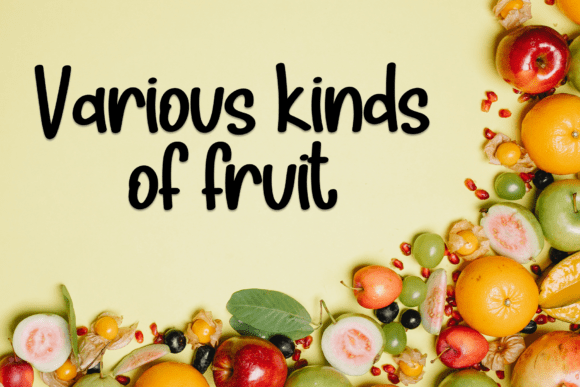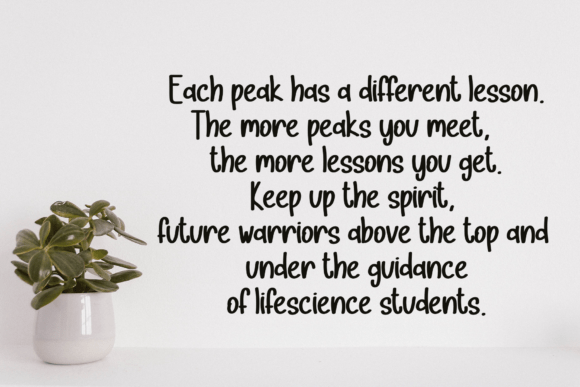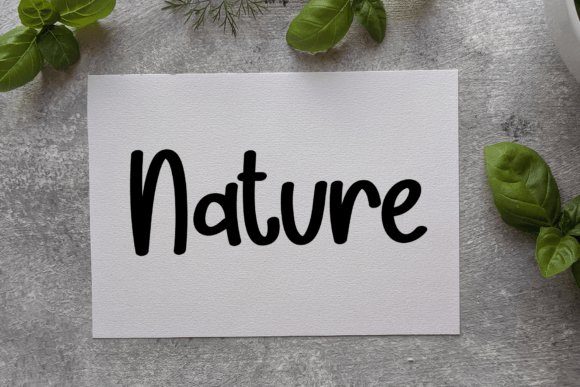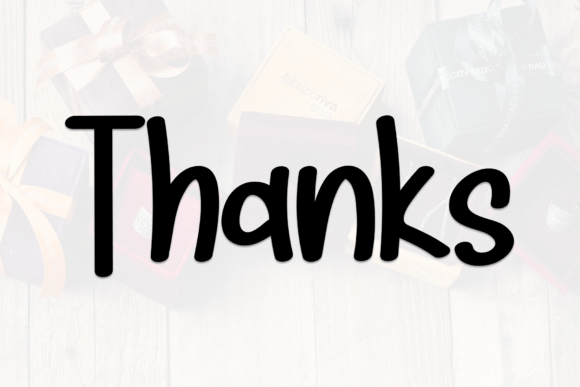
Christmas Anoting Font: A Charming Handwritten Font for Your Holiday Designs
As the holiday season approaches, designers and crafters are on the lookout for the perfect fonts to add a touch of magic to their Christmas designs. If you’re searching for a font that exudes warmth, coziness, and a sense of heartfelt perfection, look no further than Christmas Anoting Font. In this article, we’ll dive into the features and benefits of this charming handwritten font and explore how it can elevate your holiday design projects.
What is Christmas Anoting Font?
Christmas Anoting Font is a beautiful, handwritten font that is filled with a sense of warmth and coziness. Its smooth strokes and organic lines evoke a relaxed atmosphere, making it perfect for a variety of design projects. Whether you’re working on branding, invitations, or social media graphics, this font is sure to add a touch of personality and whimsy to your designs.
Key Features of Christmas Anoting Font
- Handwritten style: Christmas Anoting Font has a charming, handwritten style that adds a personal touch to your designs.
- Smooth strokes: The font features smooth strokes and organic lines that give it a relaxed and natural feel.
- Versatile: Christmas Anoting Font is perfect for a variety of design projects, from branding and invitations to social media graphics and more.
- Easy to read: Despite its handwritten style, Christmas Anoting Font is easy to read and understand, making it perfect for use in body text or headlines.
Benefits of Using Christmas Anoting Font
So why choose Christmas Anoting Font for your holiday design projects? Here are just a few benefits of using this charming font:
- Adds a personal touch: Christmas Anoting Font adds a personal touch to your designs, making them feel more approachable and relatable.
- Evokes a sense of warmth and coziness: The font’s smooth strokes and organic lines evoke a sense of warmth and coziness, perfect for holiday designs.
- Perfect for holiday designs: Christmas Anoting Font is specifically designed with the holiday season in mind, making it perfect for use in Christmas cards, invitations, and more.
Design Ideas Using Christmas Anoting Font
So what can you create with Christmas Anoting Font? Here are a few design ideas to get you started:
- Christmas cards: Use Christmas Anoting Font to create beautiful, personalized Christmas cards for friends and family.
- Invitations: Create festive invitations for holiday parties, events, and gatherings using Christmas Anoting Font.
- Social media graphics: Use Christmas Anoting Font to create eye-catching social media graphics, such as holiday-themed Facebook posts and Instagram stories.
- Branding: Incorporate Christmas Anoting Font into your holiday branding, such as on packaging, labels, or website headers.
Tips for Using Christmas Anoting Font
Here are a few tips for getting the most out of Christmas Anoting Font:
- Use it sparingly: While Christmas Anoting Font is beautiful, it can be overwhelming if used too much. Use it sparingly to add a touch of personality to your designs.
- Experiment with colors: Try pairing Christmas Anoting Font with different colors and textures to add depth and interest to your designs.
- Mix and match with other fonts: Don’t be afraid to mix and match Christmas Anoting Font with other fonts to create a unique and visually appealing design.
Christmas Anoting Font is a charming handwritten font that is perfect for adding a touch of warmth and coziness to your holiday designs. With its smooth strokes, organic lines, and easy-to-read style, this font is sure to become a favorite among designers and crafters. Whether you’re working on Christmas cards, invitations, social media graphics, or branding, Christmas Anoting Font is a great choice. So why wait? Download Christmas Anoting Font today and start creating your own magical holiday designs!